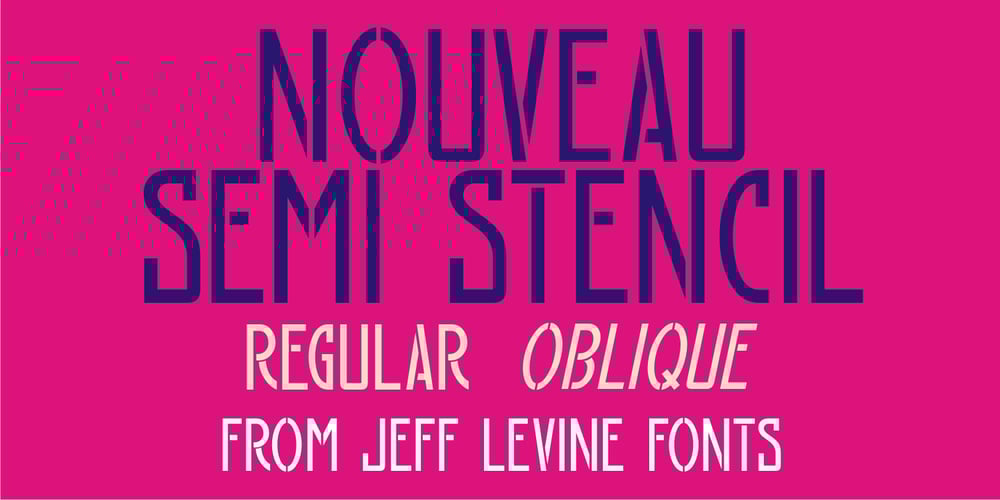
Nouveau Semi Stencil JNL
Nouveau Semi Stencil JNL font
Nouveau Semi Stencil JNL Font Family was designed by Jeff Levine and published by Jeff Levine. Nouveau Semi Stencil JNL contains 2 styles and family package options. The cover on the sheet music for the 1922 song “If She Comes from Dixie” had the title hand-lettered in an Art Nouveau style with a semi-stencil effect. It’s now available as Nouveau Semi Stencil JNL in both regular and oblique versions. The typeface is not considered a “pure” stencil because many of the letters were made solid; lacking the classic stencil “breaks” at key points found in more traditional stencil designs.